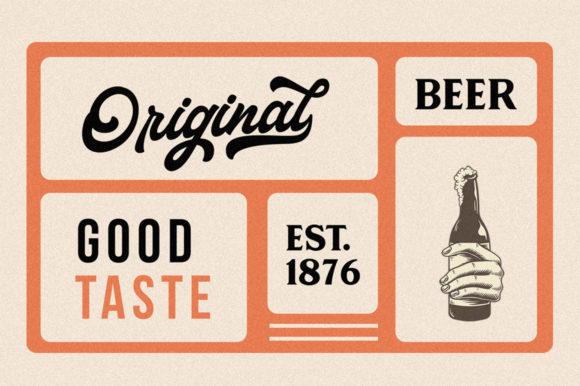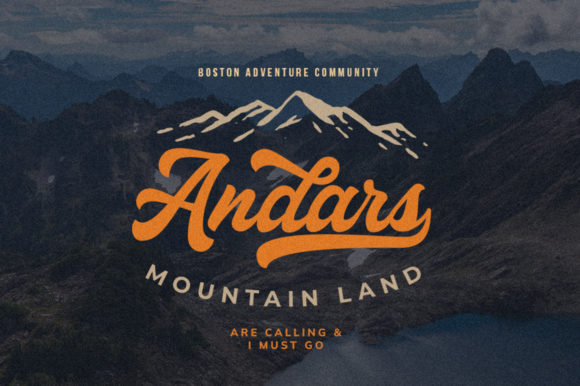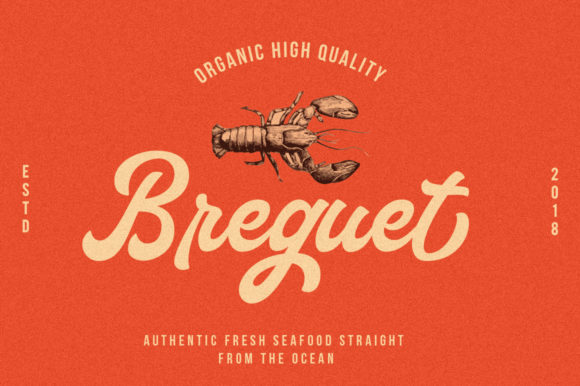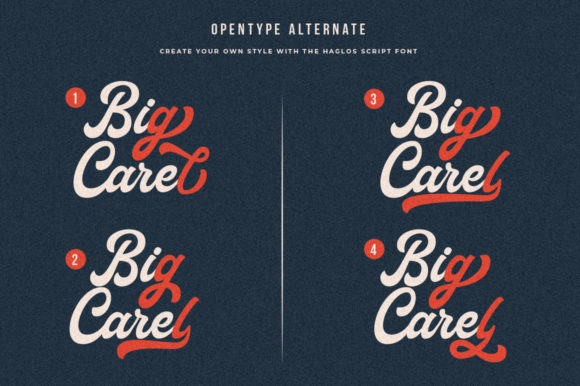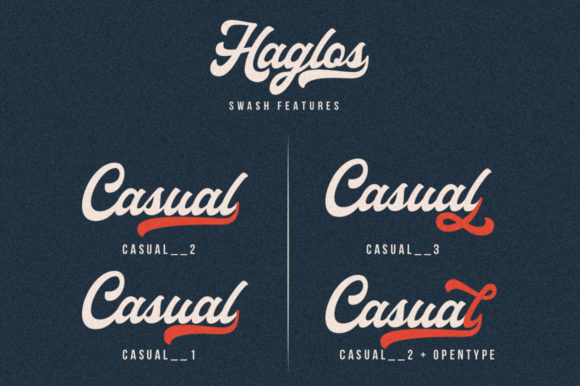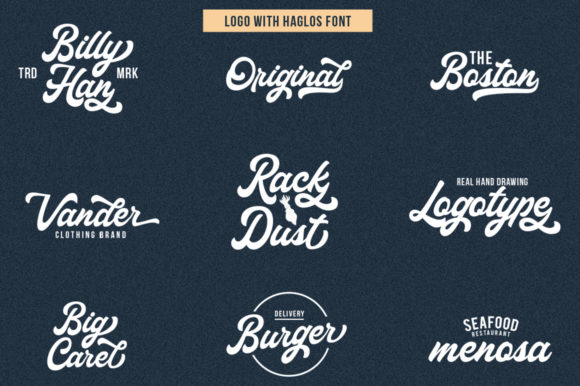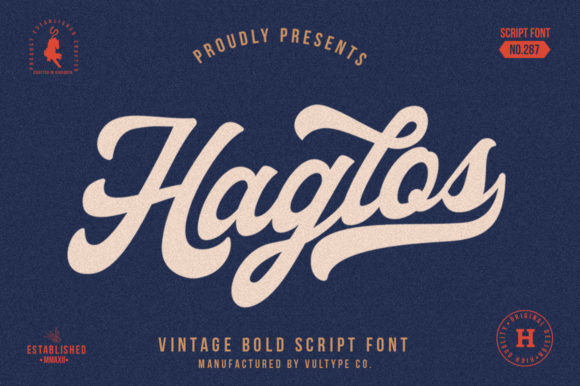
Haglos Font: A Timeless Vintage Script for Designers and Crafters
In the world of typography, fonts play a crucial role in conveying the tone and aesthetic of a design. For designers and crafters looking for a unique and elegant touch, Haglos Font is an excellent choice. This vintage script font boasts bold and smooth curves, making it a standout in any design project. In this article, we’ll dive into the features and benefits of Haglos Font, and explore how it can elevate your designs.
The Beauty of Haglos Font
Haglos Font is a vintage script with a beautiful look that exudes elegance and sophistication. Its bold and smooth curves give it a distinctive character that’s both eye-catching and legible. The font features a classic, timeless design that’s perfect for a wide range of projects, from branding and advertising to packaging and digital media.
Key Features of Haglos Font
• Bold and Smooth Curves: Haglos Font features bold and smooth curves that give it a luxurious and refined look.
• Great Legibility: The font is designed for optimal legibility, making it easy to read in various sizes and applications.
• Vintage Script Style: Haglos Font has a classic, vintage script style that’s perfect for designs that require a touch of elegance and sophistication.
• Versatile: The font is versatile and can be used in a wide range of projects, from print to digital media.
Benefits of Using Haglos Font
So, why choose Haglos Font for your design projects? Here are some benefits of using this beautiful vintage script font:
• Adds Elegance and Sophistication: Haglos Font adds a touch of elegance and sophistication to any design project, making it perfect for luxury brands and high-end products.
• Improves Readability: The font’s great legibility ensures that your message is conveyed clearly and effectively, even in small sizes.
• Unique and Distinctive: Haglos Font is a unique and distinctive font that sets your design apart from others, making it perfect for brands looking to establish a strong visual identity.
Design Ideas Using Haglos Font
Now that we’ve explored the features and benefits of Haglos Font, let’s look at some design ideas that showcase its beauty:
• Branding and Logo Design: Use Haglos Font to create a luxurious and sophisticated brand identity that stands out in the market.
• Wedding Invitations and Stationery: The font’s elegant and refined look makes it perfect for wedding invitations, stationery, and other paper goods.
• Packaging Design: Haglos Font can add a touch of elegance and sophistication to product packaging, making it perfect for luxury brands.
• Digital Media: Use the font in digital media, such as social media graphics, email headers, and website titles, to add a touch of elegance and sophistication.
In conclusion, Haglos Font is a beautiful vintage script font that offers a unique and elegant touch to any design project. Its bold and smooth curves, great legibility, and versatile design make it a standout in the world of typography. Whether you’re a designer or crafter looking for a font that adds elegance and sophistication to your designs, Haglos Font is an excellent choice. With its wide range of applications and ease of use, Haglos Font is sure to become a favorite in your design arsenal.